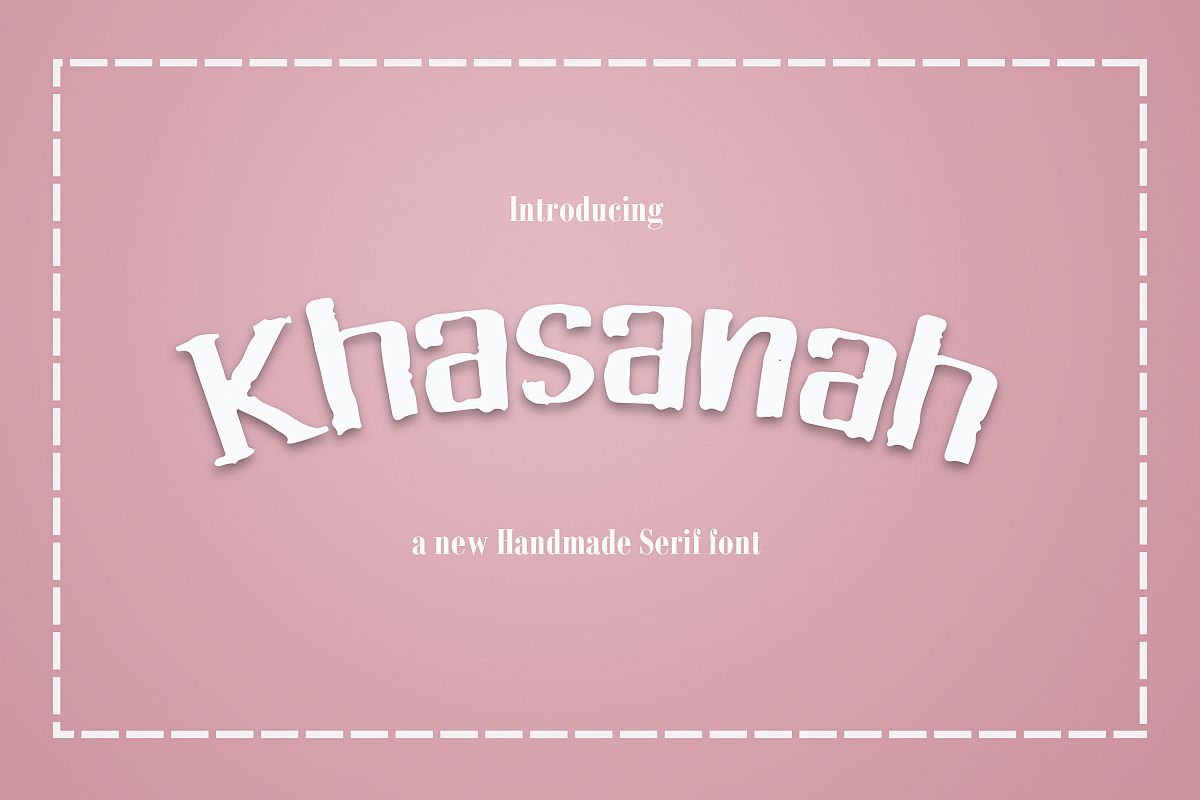
Khasanah  a Handmade Brush Font Serif
Introducing Khasanah  a Handmade Brush Font Serif ! - A minimalist and awesome character! With three different weights, it's perfect for magazine layouts, invitations, headers, or even large-scale artwork.